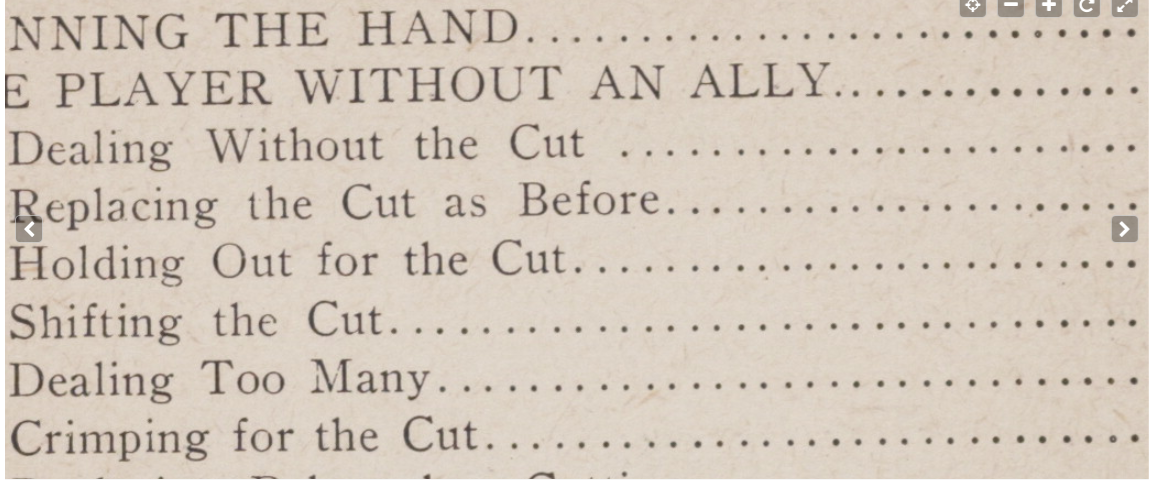
Was this typeset on a Linotype?
The book "Artifice Ruse and Subterfuge at the Card Table", also known under the title "Expert at the Card Table" was published in 1902 in Chicago, printed by James McKinney & Co. A reprint from 1905 by Drake (likely from the original McKinney plates) can be seen here https://www.loc.gov/resource/rbc0001.2010houd11604/?st=gallery (or here is another link https://www.loc.gov/item/34011788/ )
Can the experts here opine on if this book was set on a linotype, or perhaps on a Monotype, or hand composed.
I'm going to stick my neck out here and say hand set. Here's a sample of the book for people who want to stay on this site. You can see the whole book if you click on the link on the post above.
I can see signs that some of the type may be slightly damaged which makes me believe it was hand set from a case rather than freshly cast.